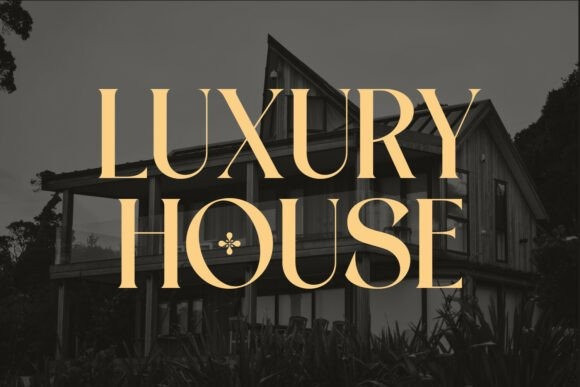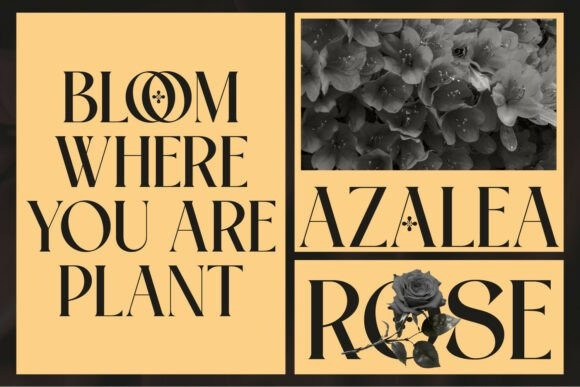
Flangel Font is an exquisite serif typeface, masterfully realized with elegant curves and nuanced details, embodying a contemporary yet classic style.Flangel is a breathtaking luxury serif font that seamlessly blends classical elegance with a sophisticated, modern display sensibility.
The core structure features high-contrast serifs with dramatic thin strokes and strong verticals, conveying an immediate sense of prestige and premium quality. What sets the Flangel typeface apart are its exquisite alternate swash characters, which introduce delicate, sweeping curves and elaborate connections (as seen in the ‘F’ and ‘g’), transforming headlines into captivating artistic statements.
Crafted to encapsulate sophistication and exclusivity, every character boasts fluid transitions and artistic contours, delivering a first-rate visual treat. Ideal for luxurious branding, editorial compilations, beauty commodities, wedding concepts, logo crafting, and all creative endeavors demanding an upmarket and refined aesthetic.
This Flangel font is the definitive choice for branding high-end products, designing fashion magazines, creating elegant wedding stationery, and crafting exclusive packaging that demands a regal and refined appearance.